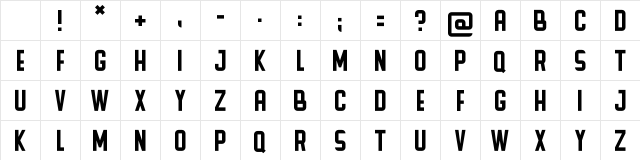
Complete ZAPPAT Black glyph index. Displaying only characters natively supported by ZAPPAT Black font.
ZAPPAT is a composed and adaptable typeface that performs quietly and consistently across a wide range of design contexts.